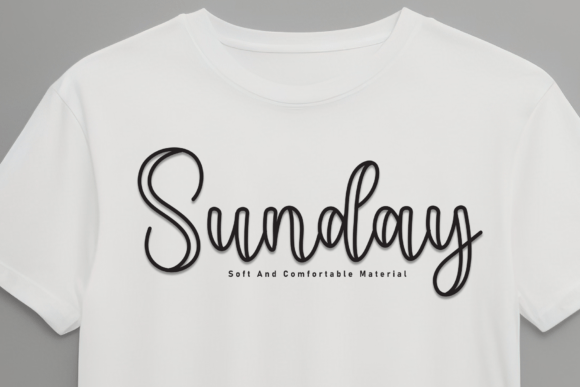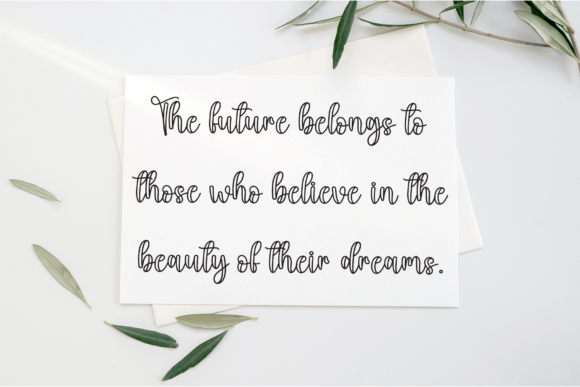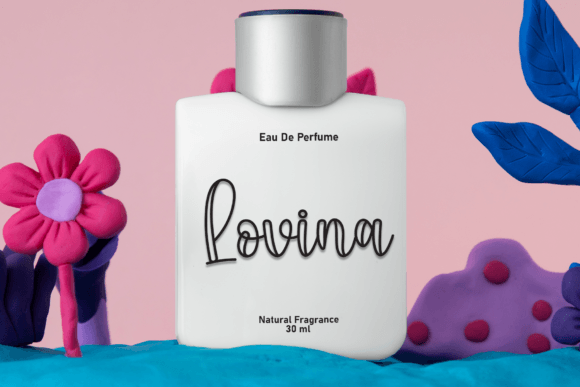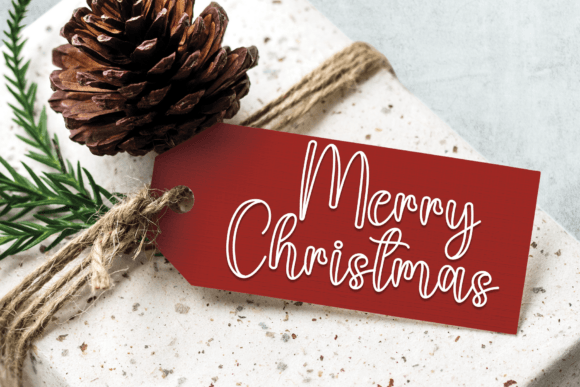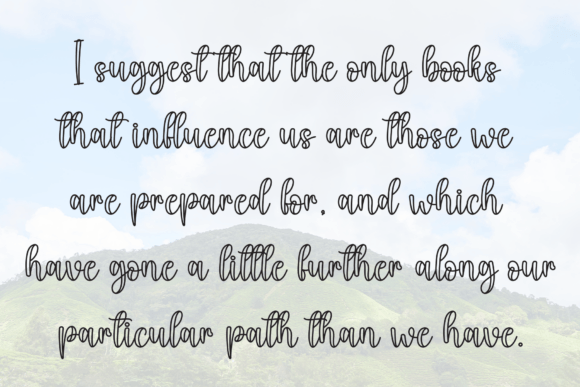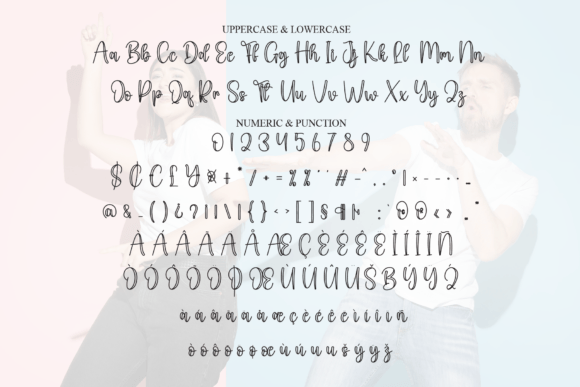
Hello Dancing Font: The Perfect Blend of Sweet and Friendly
Are you looking for a font that can add a touch of fun and whimsy to your designs? Look no further than Hello Dancing Font! This endearing handwritten display font is a delightful blend of sweet and friendly, making it perfect for wedding invitations, cards, and any other design that needs a playful spark.
The Charm of Hello Dancing Font
Hello Dancing Font is a cute and joyful font that is sure to capture the hearts of designers and crafters alike. Its sweet and friendly essence makes it an ideal choice for designs that require a warm and inviting vibe. Whether you’re creating wedding invitations, birthday cards, or social media graphics, this font is sure to add a touch of magic to your designs.
Wedding invitations and cards are a great way to showcase the beauty of Hello Dancing Font. The font’s playful and whimsical nature makes it perfect for couples who want to add a personal touch to their special day. With Hello Dancing Font, you can create beautiful and unique wedding invitations that will set the tone for a joyous and celebratory occasion.
Adding a Touch of Fun and Whimsy to Your Designs
Hello Dancing Font is not just limited to wedding invitations and cards. You can use it to add a touch of fun and whimsy to any design project. Whether you’re creating social media graphics, blog posts, or product labels, this font is sure to add a playful spark to your designs. Its cute and joyful essence makes it perfect for designs that require a lighthearted and carefree vibe.
Why Choose Hello Dancing Font?
There are many reasons why Hello Dancing Font is a great choice for designers and crafters. Here are a few:
• Unique and Playful Design: Hello Dancing Font has a unique and playful design that is sure to stand out from the crowd.
• Easy to Read: Despite its playful nature, Hello Dancing Font is easy to read and understand, making it perfect for designs that require a clear and concise message.
• Versatile: Hello Dancing Font can be used for a wide range of design projects, from wedding invitations to social media graphics.
• High-Quality: Hello Dancing Font is a high-quality font that is designed to deliver exceptional results.
Tips for Using Hello Dancing Font
Here are a few tips for using Hello Dancing Font in your designs:
• Use it for Headings: Hello Dancing Font is perfect for headings and titles. Use it to add a touch of fun and whimsy to your designs.
• Pair it with Other Fonts: Hello Dancing Font can be paired with other fonts to create a unique and interesting design.
• Experiment with Colors: Hello Dancing Font looks great in a variety of colors. Experiment with different colors to find the one that works best for your design.
Hello Dancing Font is a delightful blend of sweet and friendly that is sure to add a touch of fun and whimsy to your designs. Its cute and joyful essence makes it perfect for wedding invitations, cards, and any other design that needs a playful spark. With its unique and playful design, ease of use, and versatility, Hello Dancing Font is a great choice for designers and crafters. So why not give it a try and see the magic it can add to your designs?